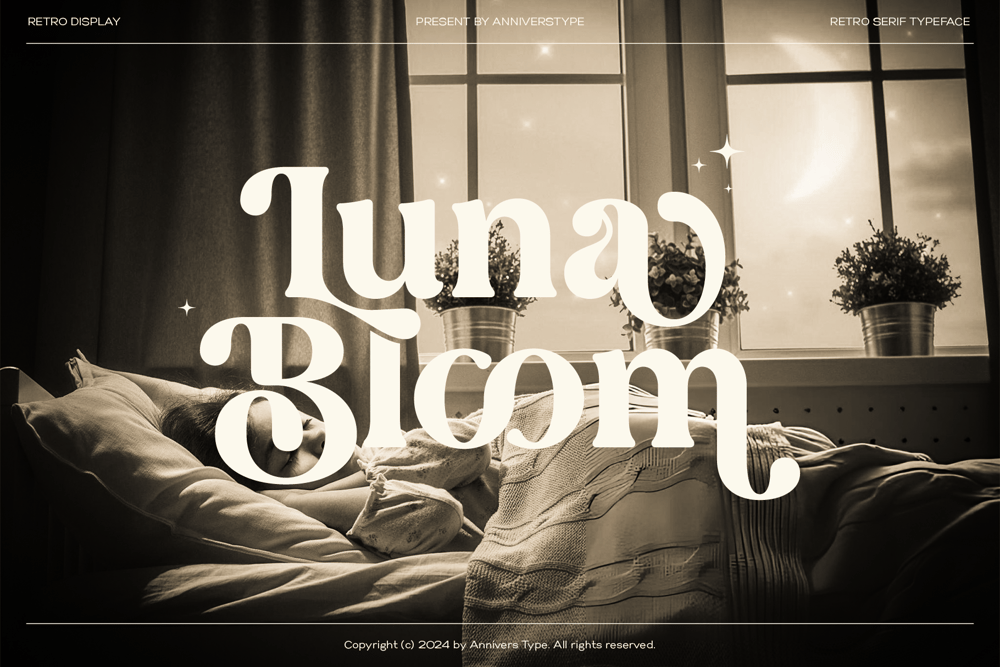
Luna Bloom Font Family was designed by Sigit Ananta and published by Annivers Type Studio. Luna Bloom contains 1 styles and family package options. Luna Bloom is a Retro Display font with a unique blend of vintage charm and modern versatility. Inspired by nostalgic typography, it features rounded edges, bold curves, and elegant ligatures, making it perfect for branding, posters, packaging, social media, and more. With its smooth yet expressive letterforms, Luna Bloom brings a timeless feel to any project, allowing you to create eye-catching designs effortlessly.Perfect for: Cinematic titles, logo design, advertising, wedding invitations, product packaging, social media posts, vintage merchandise, apparel design, labels, photography, stationery, and creative branding projectsEnjoy designing with Luna Bloom and let the retro vibes shine!